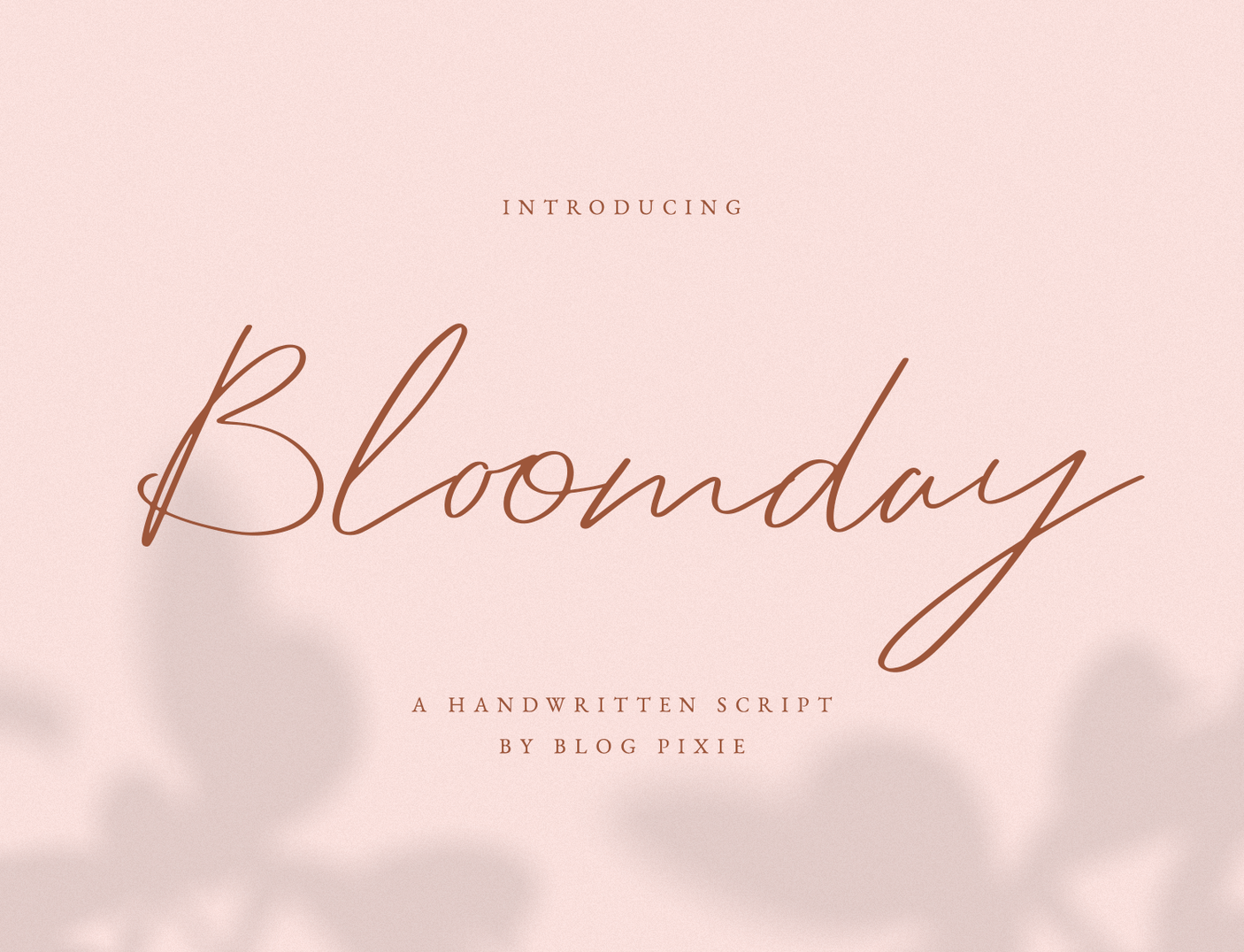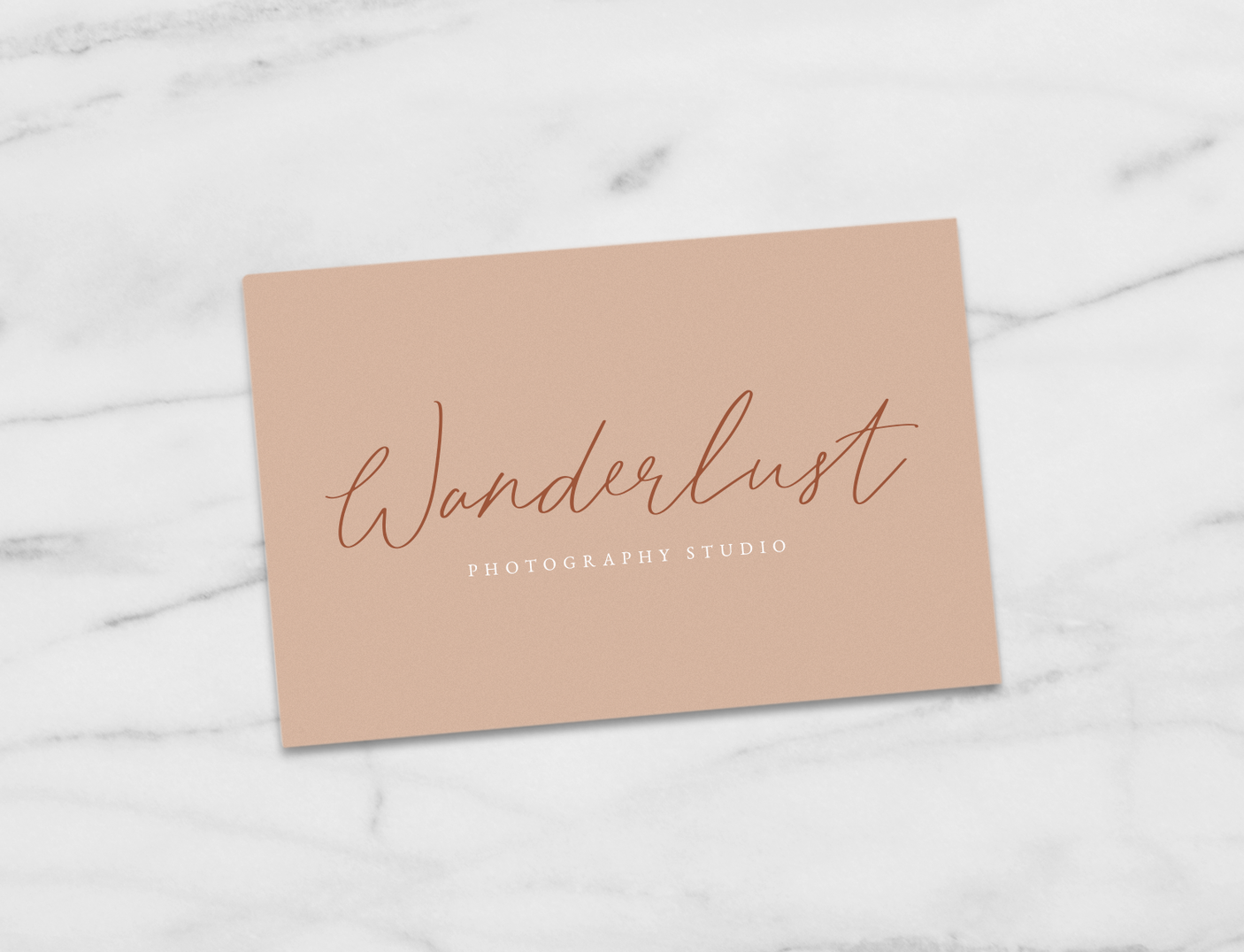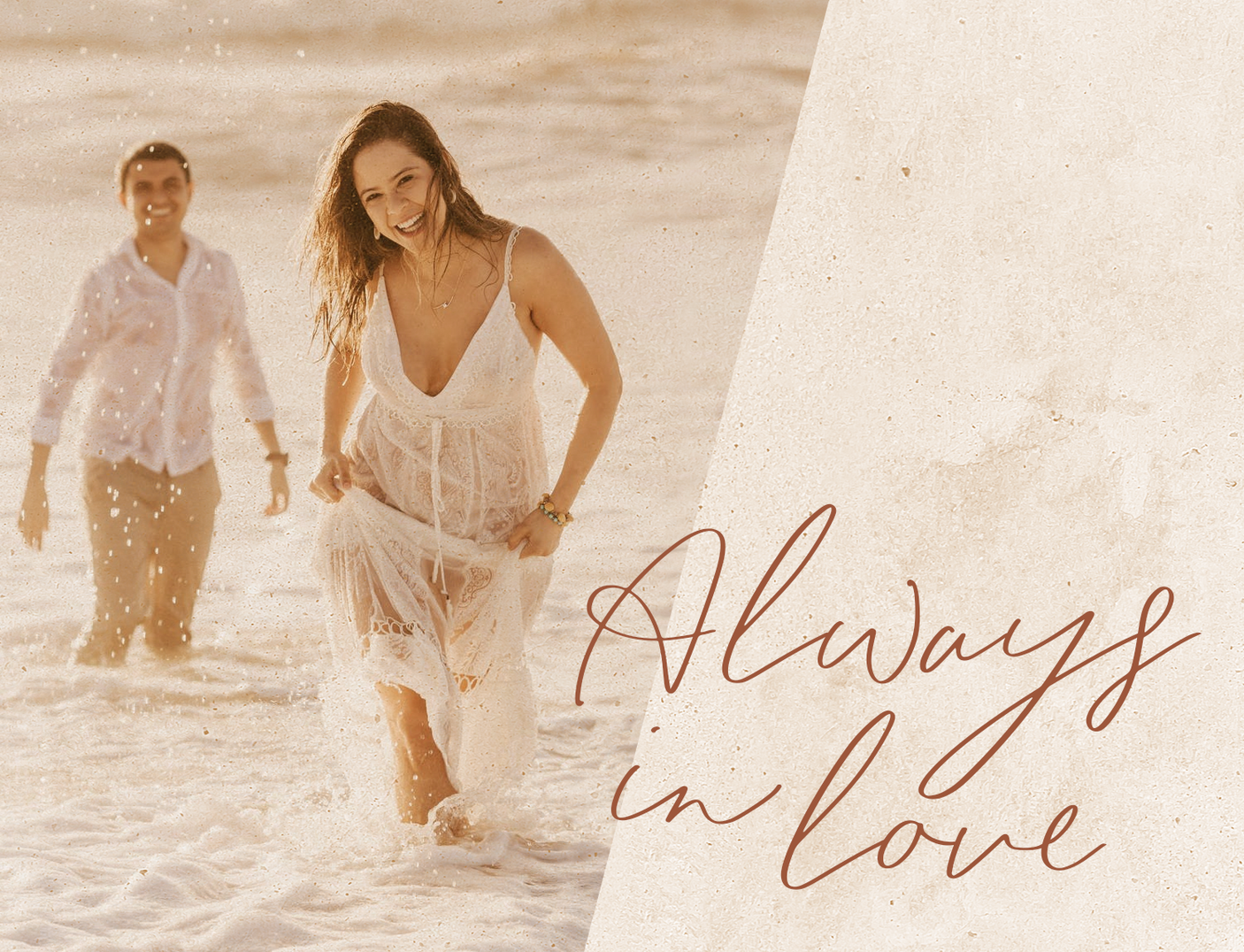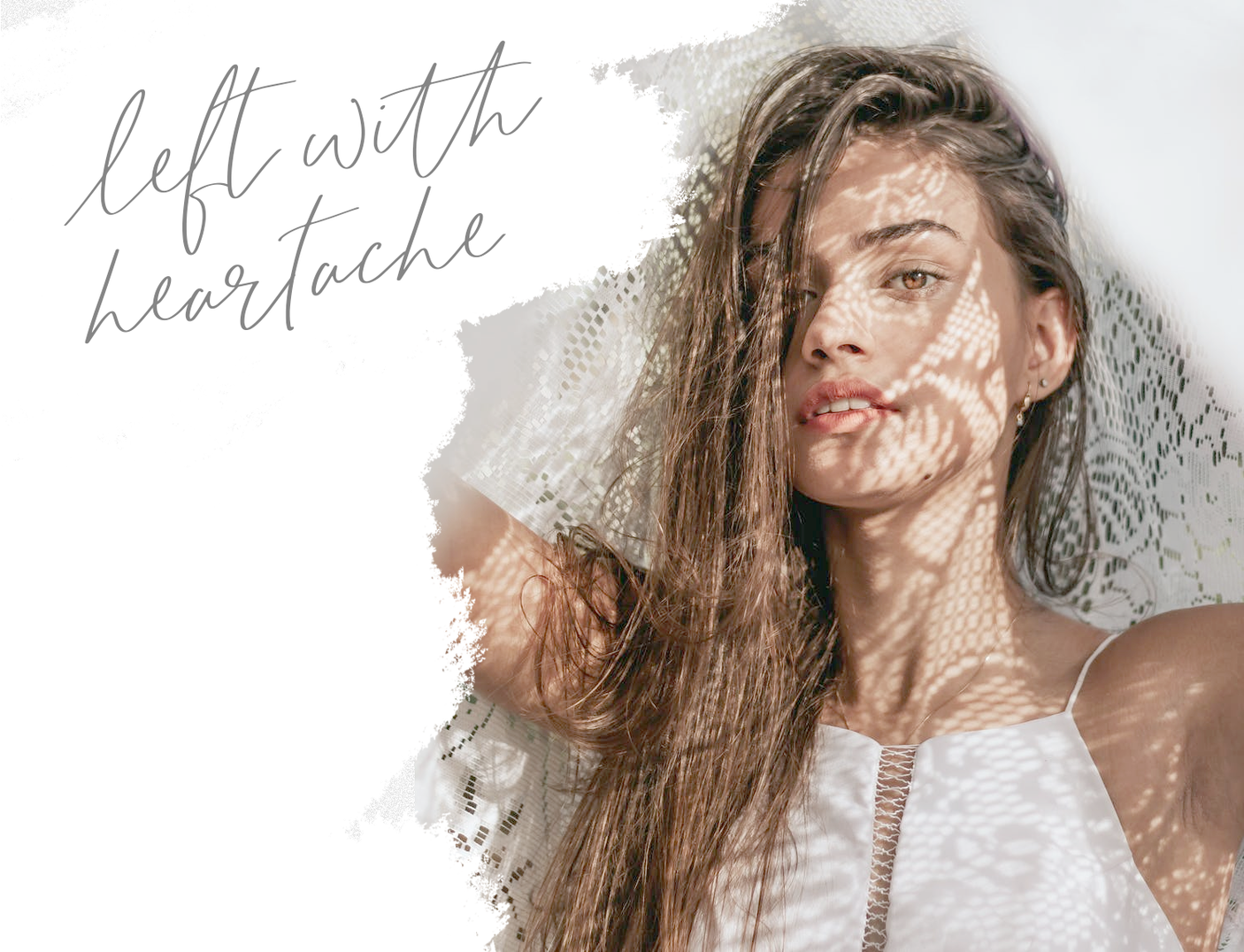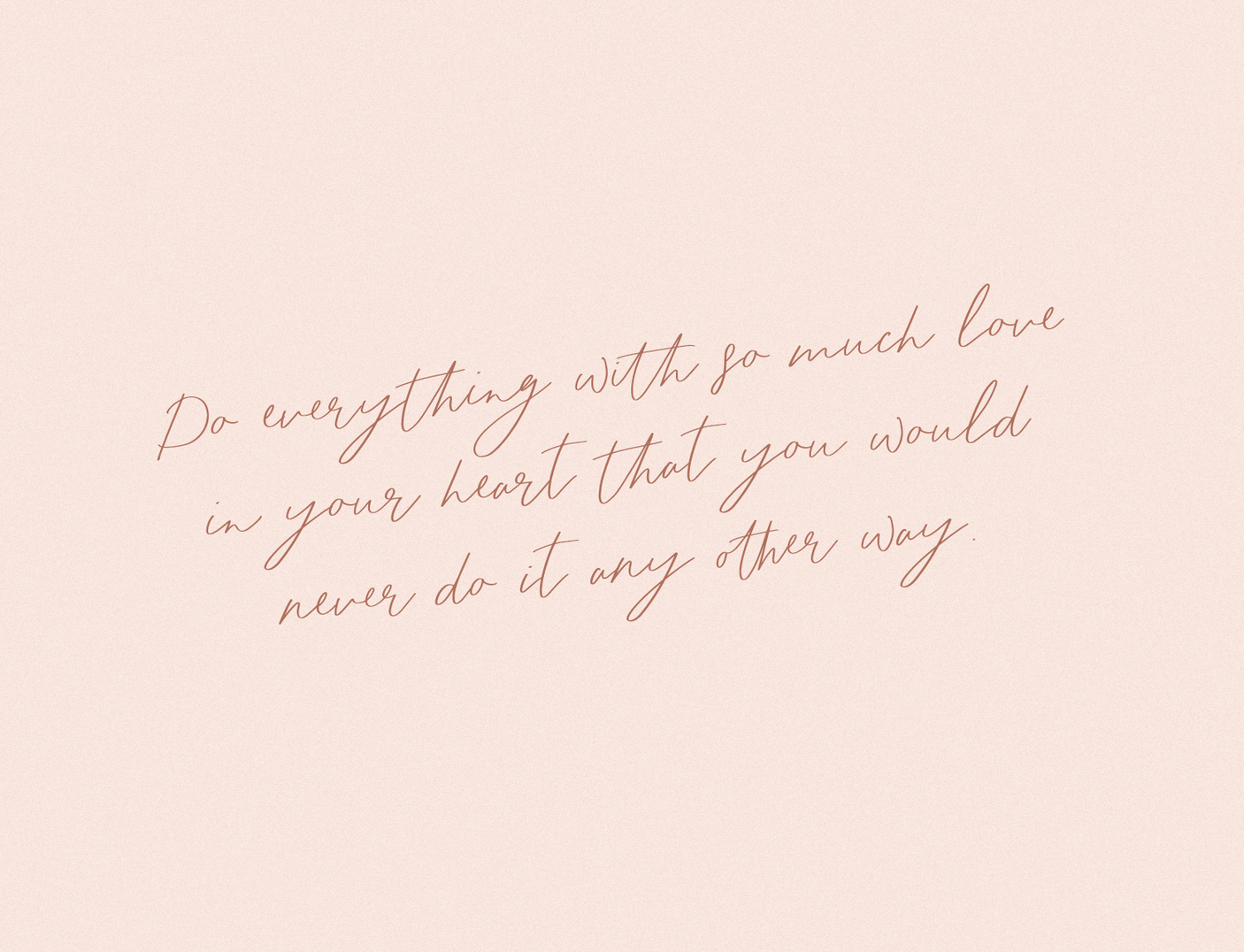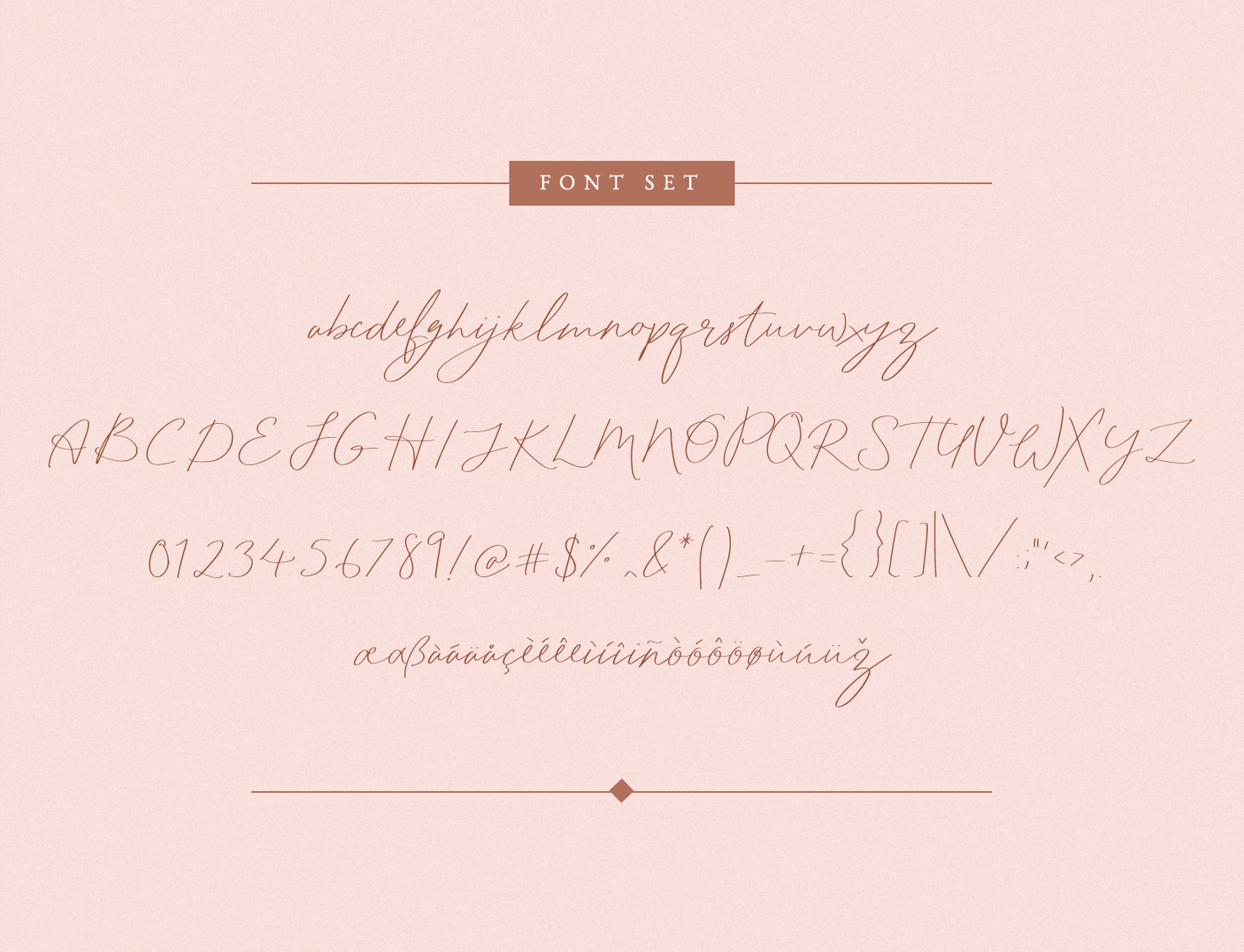
Bloomday Font
Introducing Bloomday, a beautiful script font perfect for all your personal and commercial projects. With its modern handwriting style, this font adds a touch of elegance to any design. Download now and elevate your creations.